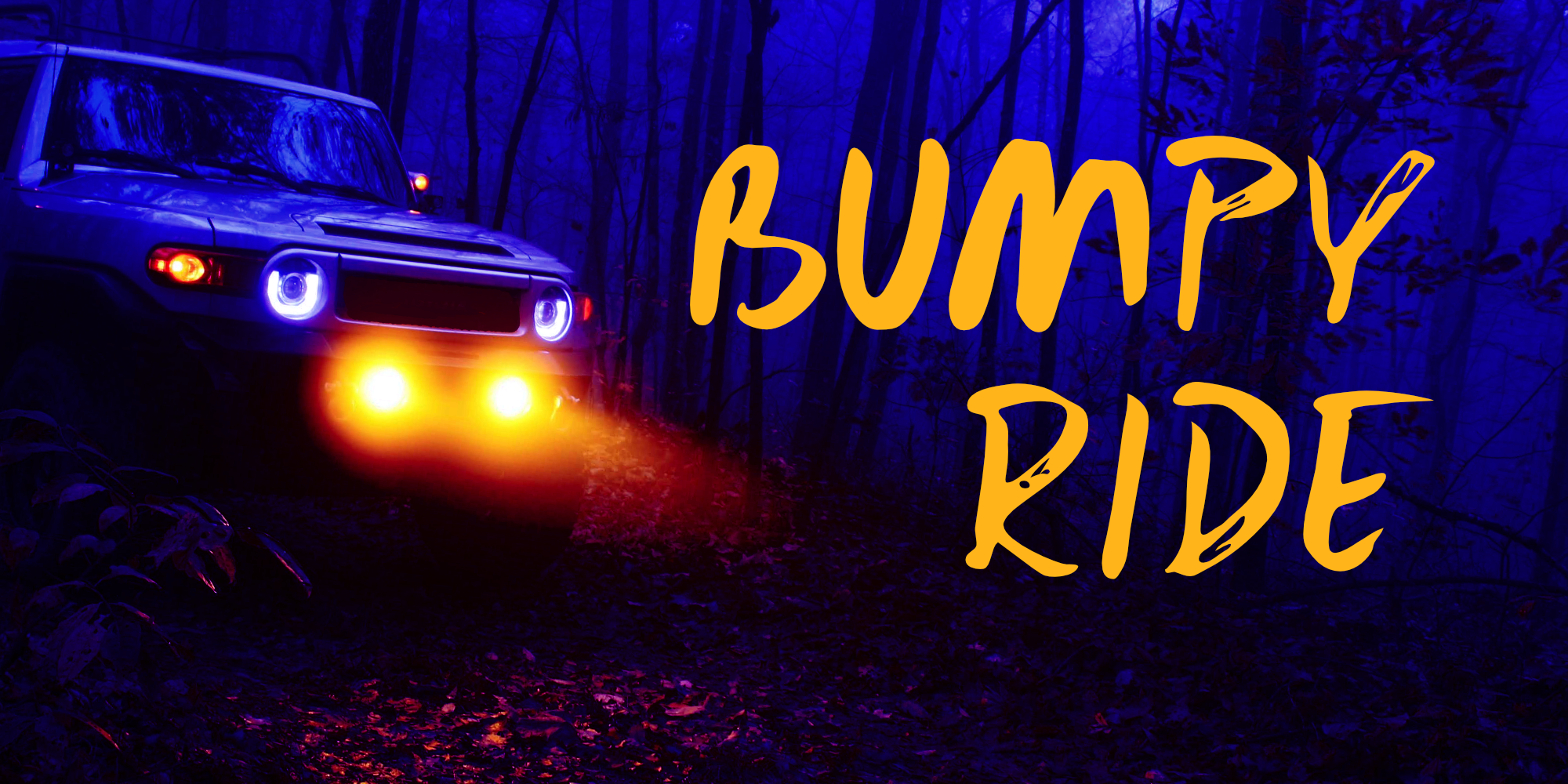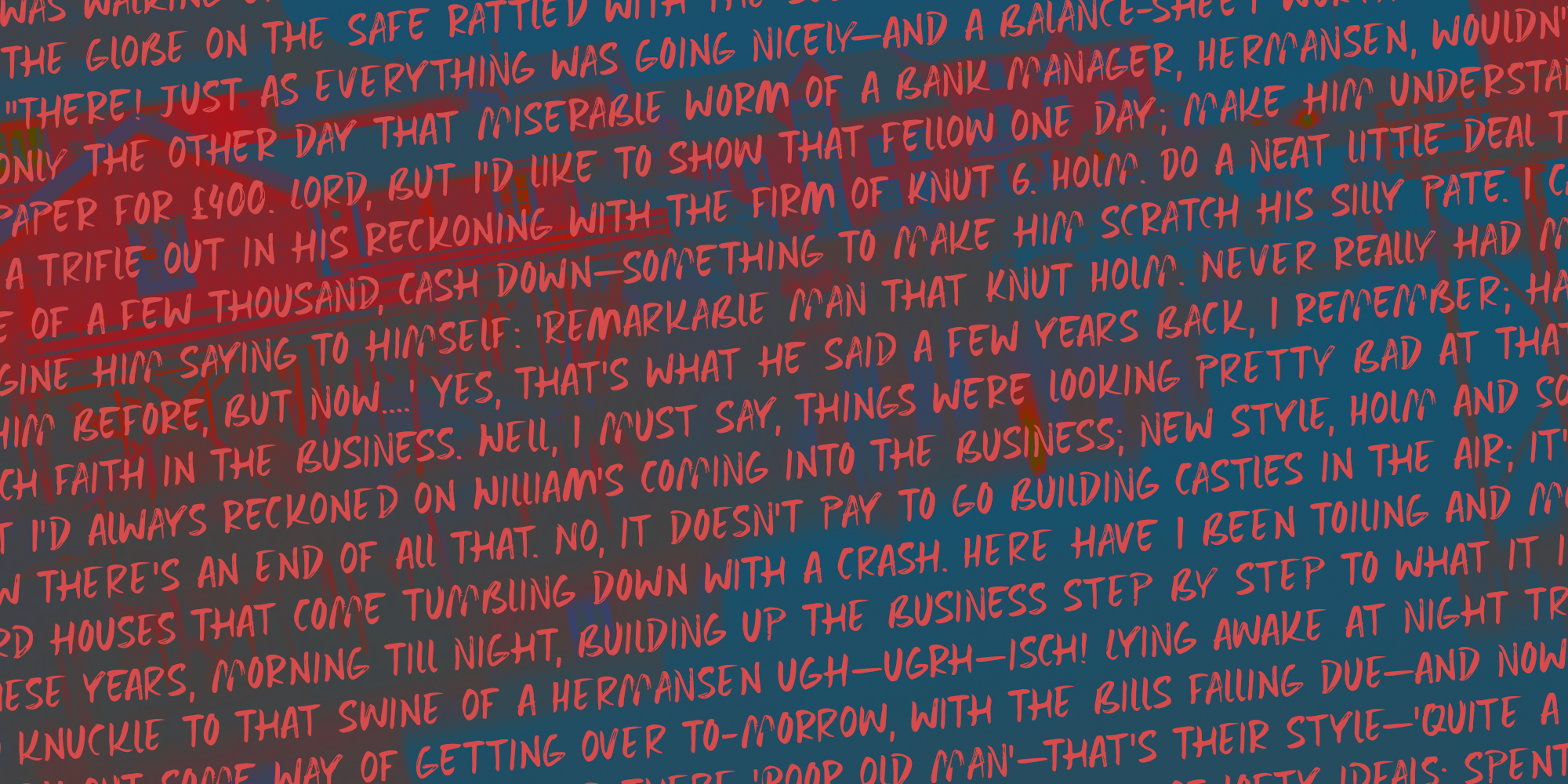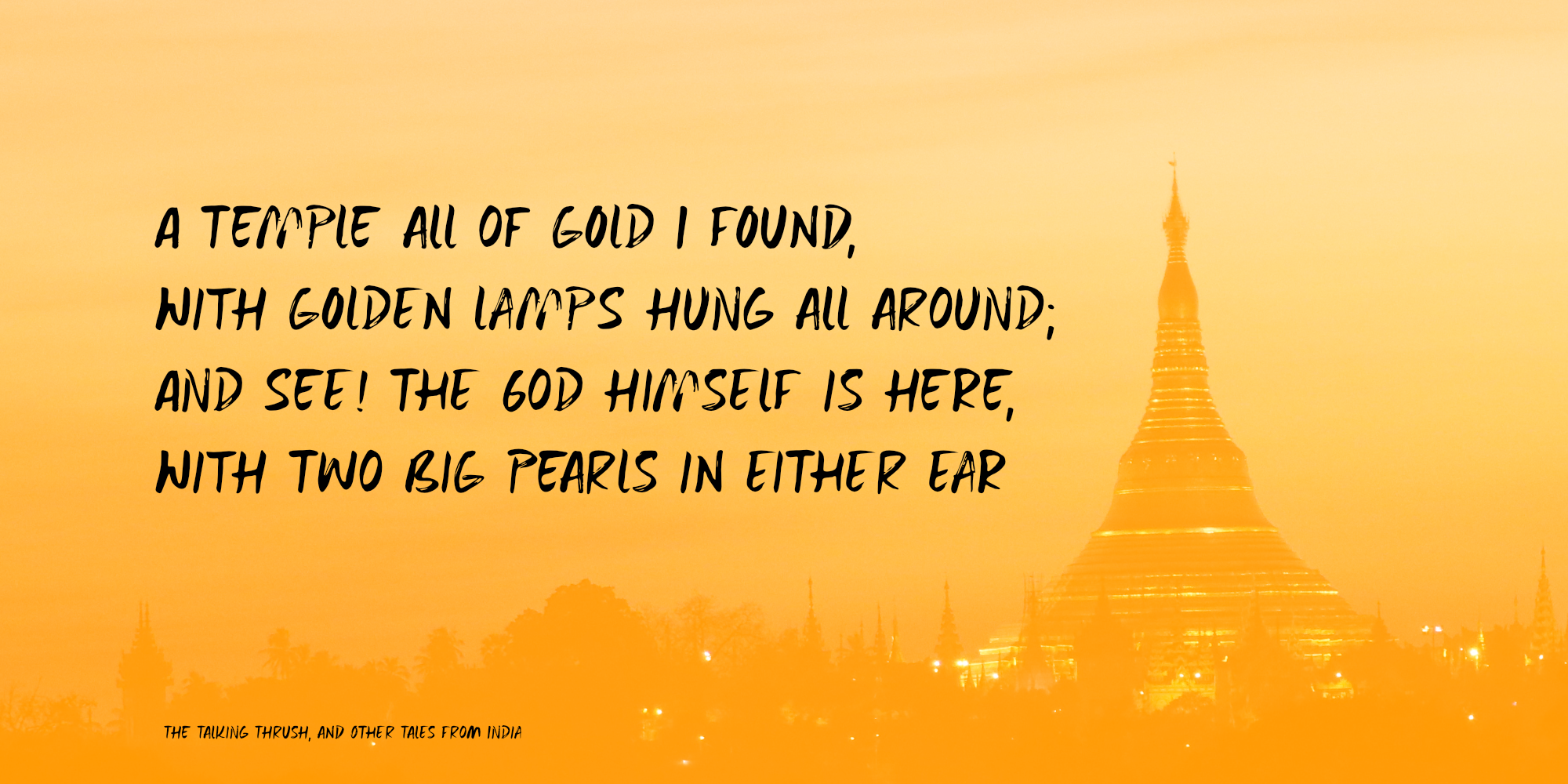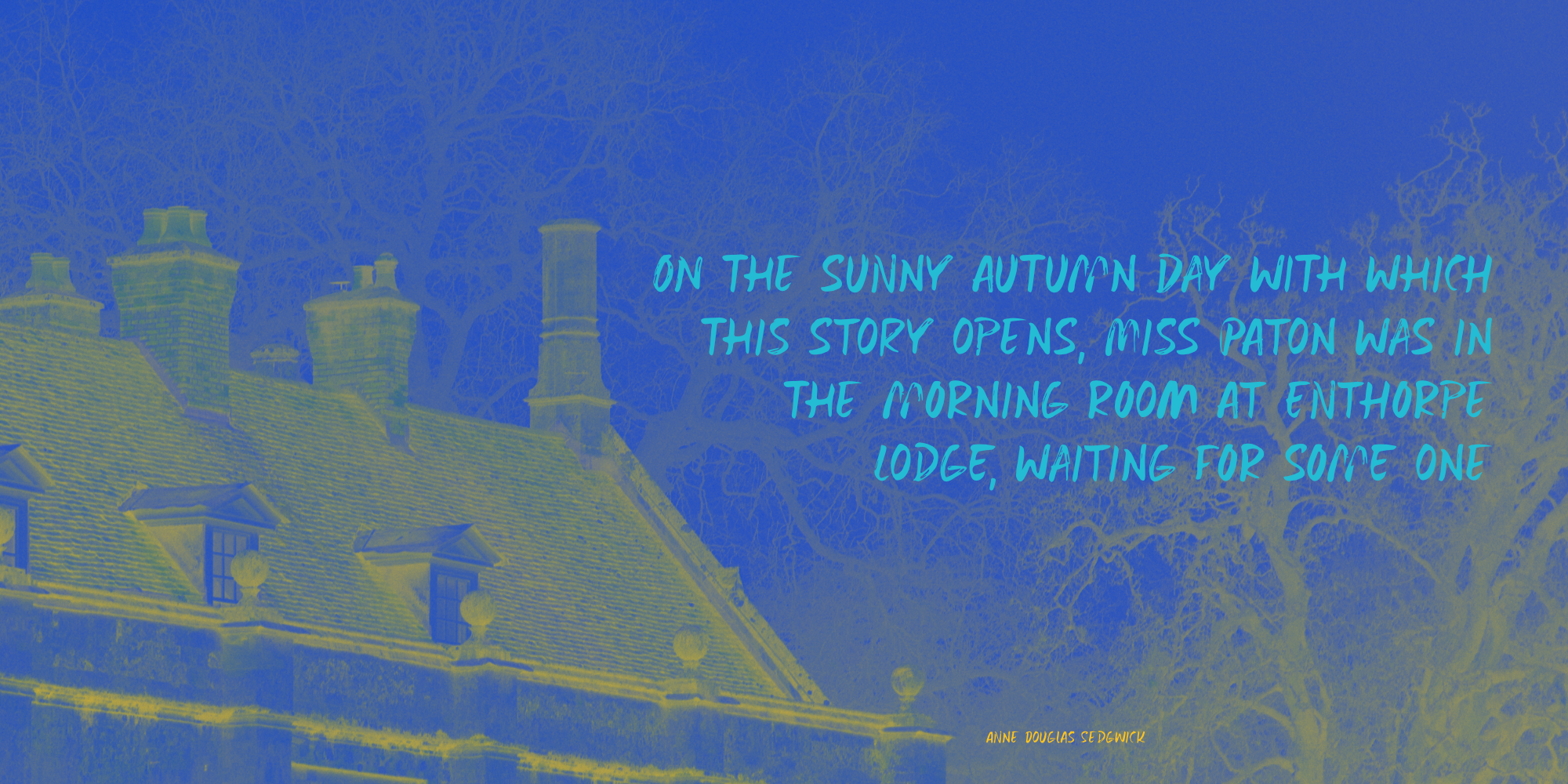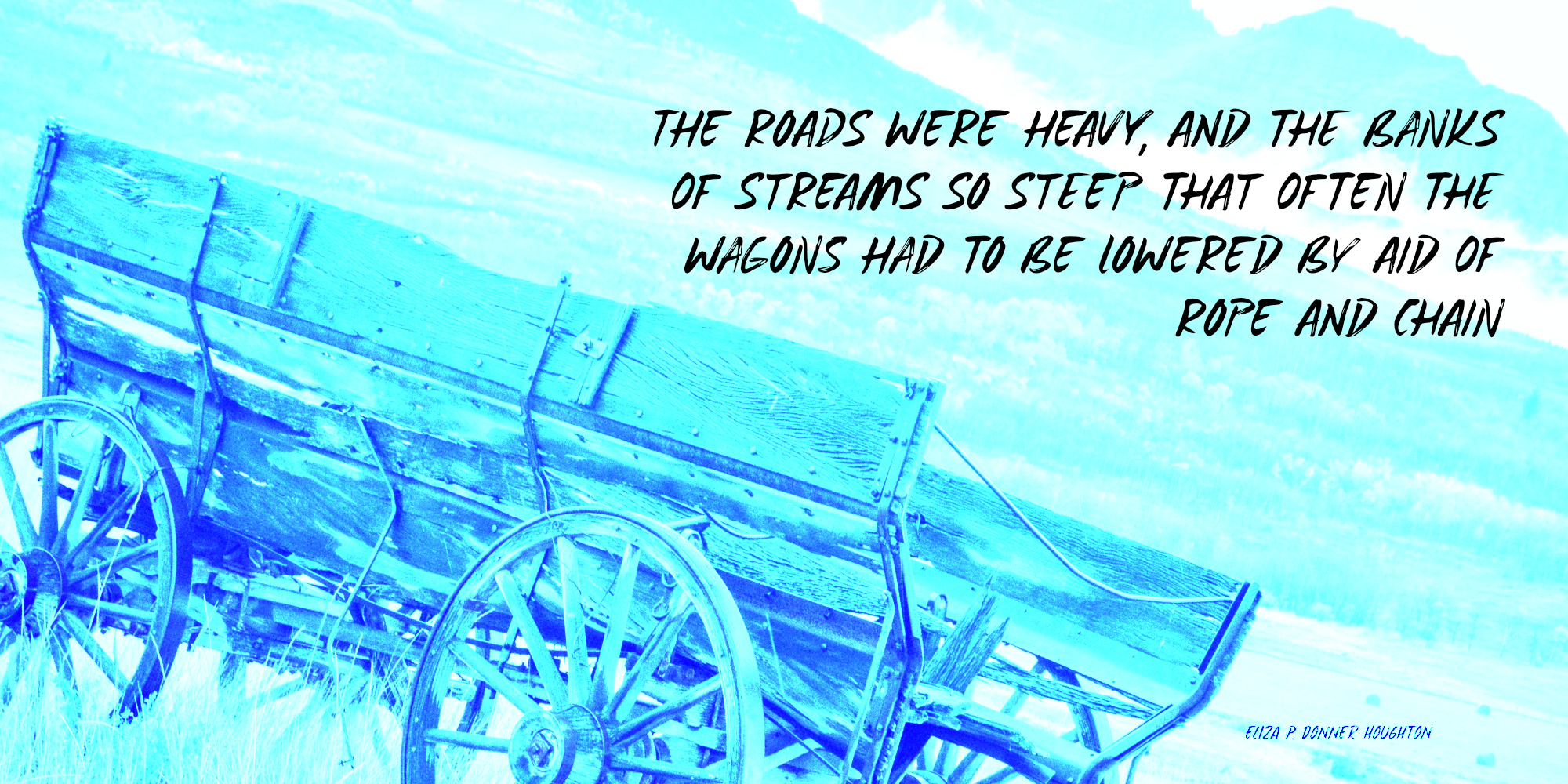
Bumpy Ride (2 fonts)
Bumpy Ride was made using a so called Brush Pen. It comes with all the accents and a sweet set of alternates for the lower case letters.